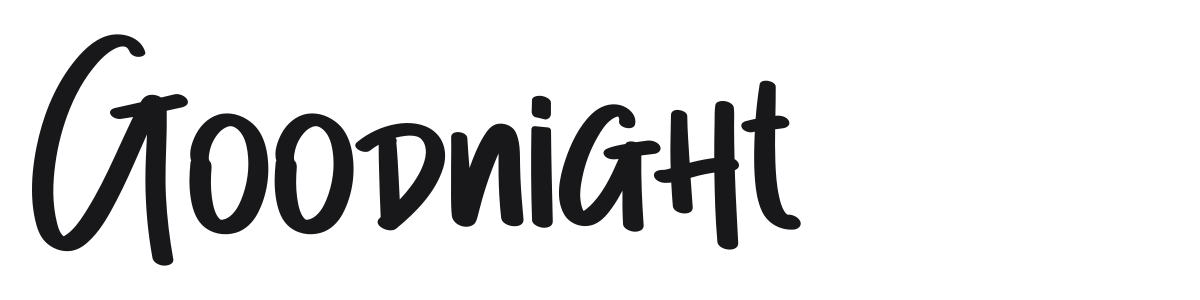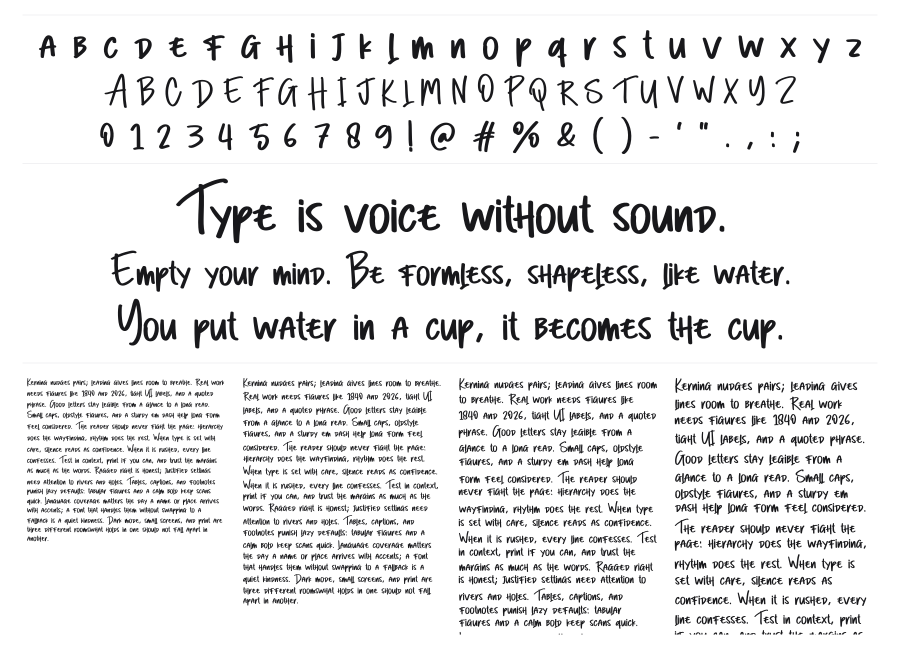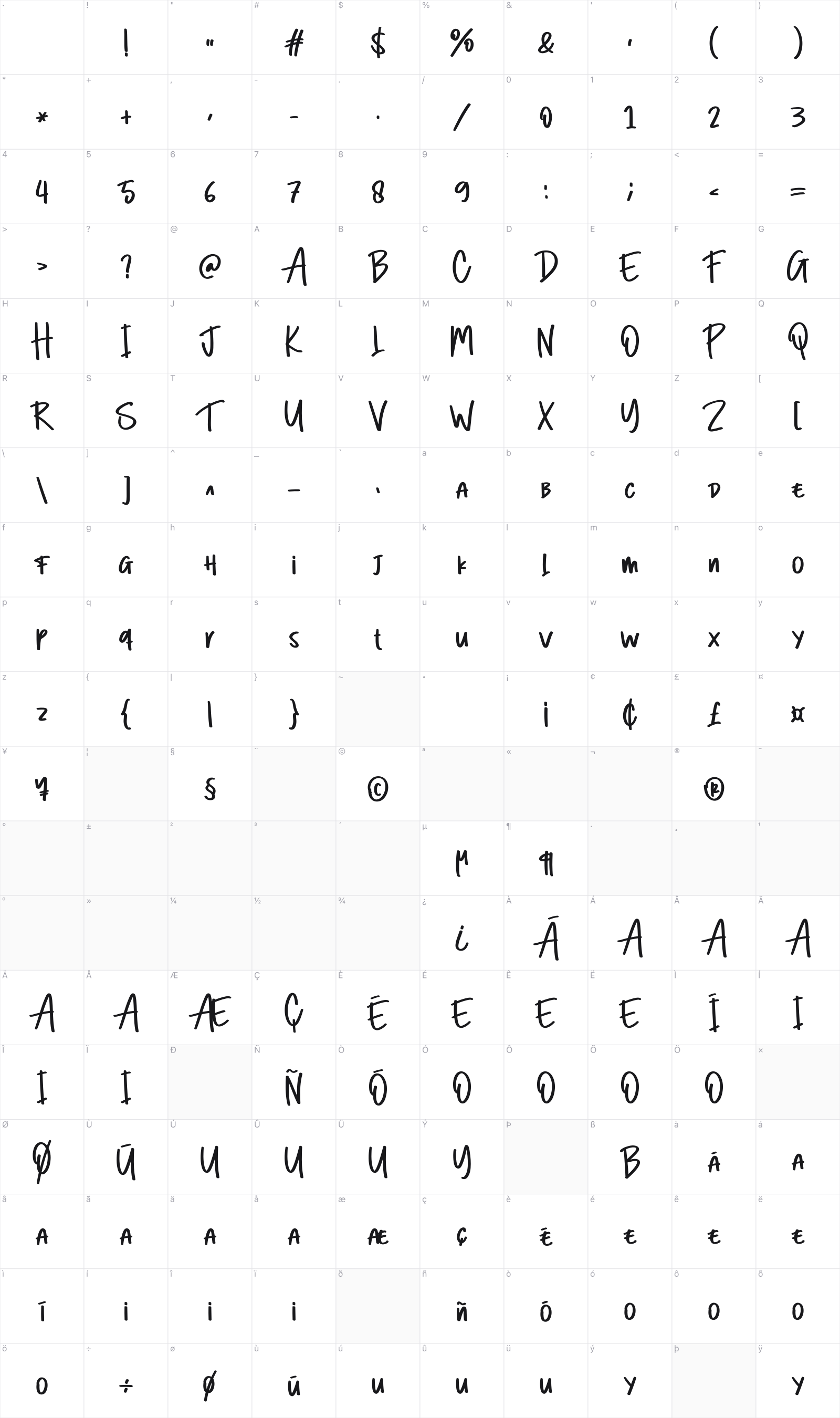
Goodnight
Goodnight is a bold casual handwritten script with a lively, marker-pen feel. Characters vary in height and lean with a natural bounce, striking the balance between relaxed and intentional. It works across wedding stationery, product packaging, social media graphics, and anywhere a warm human touch is needed.